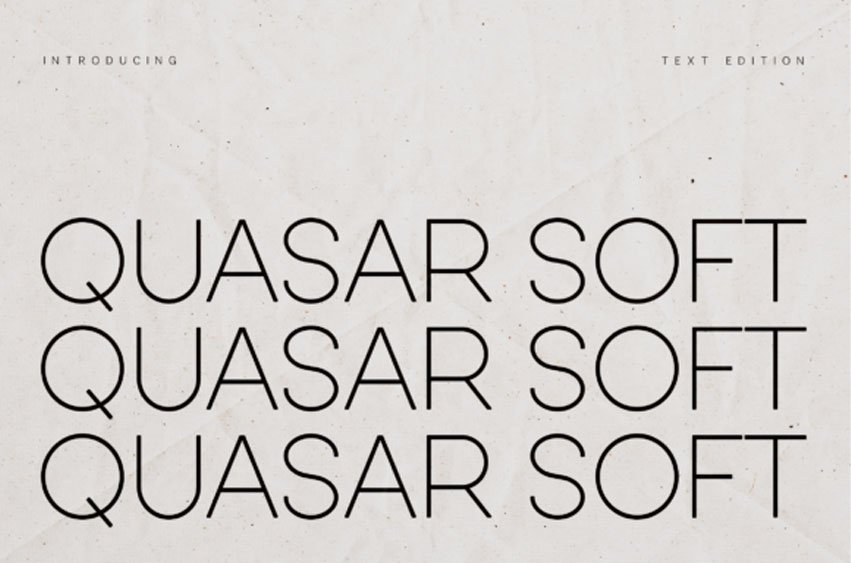
Quasar Soft Font
Quasar Soft Font is an ultra light rounded sans serif designed for modern branding, editorial layouts, and minimalist visual systems.
Built with clean geometric structure and softened terminals, it delivers a refined and contemporary look while maintaining warmth and clarity. Its airy spacing and delicate monoline strokes make it perfect for logos, packaging, fashion campaigns, wellness brands, sustainable products, and high-end presentations.
Whether you are working on high-end tech branding or minimalist editorial layouts, the Quasar Soft font provides a clean, breathable structure that ensures readability across both print and digital platforms. It pairs exceptionally well with heavy-weight serifs for a dynamic contrast or functions beautifully as a standalone hero for logos and minimalist posters. Experience the effortless elegance of the Quasar Soft typeface in your next project to achieve a look that is both futuristic and timeless.
Quasar Soft balances precision and softness — ideal for designers who want elegance without heaviness.
Perfect For:
• Logo design
• Branding projects
• Editorial layouts
• Social media graphics
• Packaging design
• Luxury and wellness brands
• Modern presentations
• Website headers